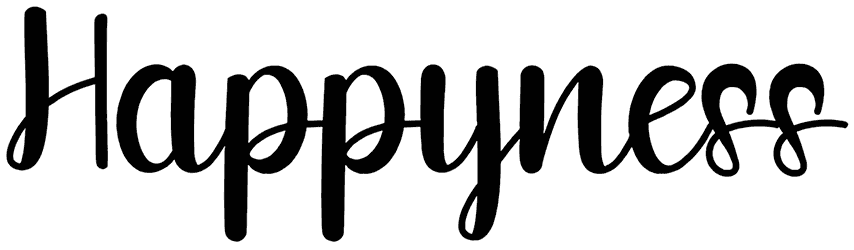
Happyness Font
Happyness is a beautiful script font with a playful, curly look. It is perfect for adding a touch of whimsy and cheer to your designs. The font is easy to read and has a friendly, inviting feel.